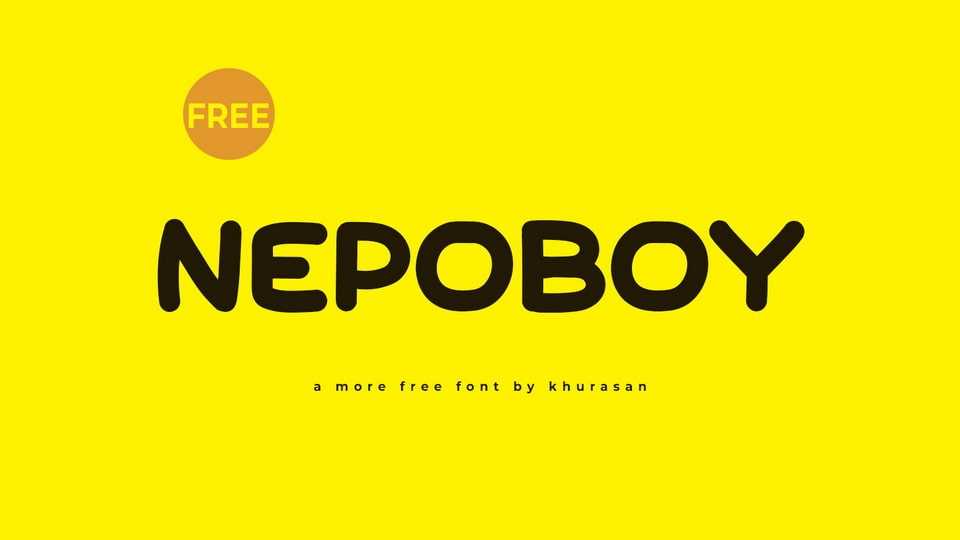
Download Nepoboy font, the effortlessly cool and playfully relaxed hand-lettered typeface that effortlessly blends casual charm with a comic book vibe. The strokes of Nepoboy are carefree and breezy, evoking the feeling of doodling in the margins of a notebook with a favorite pen.